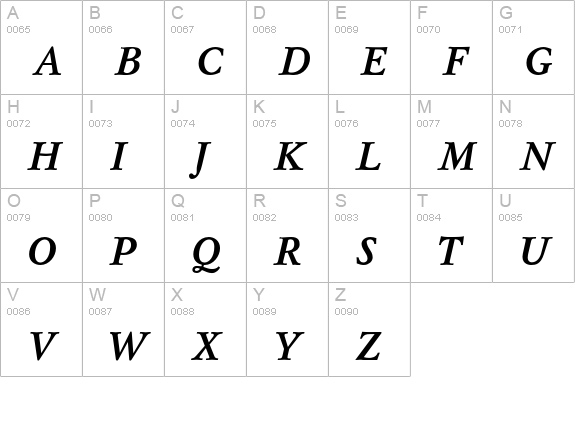
PM Mysl BoldItalic Cyrillic Font Details
The PM Mysl BoldItalic Cyrillic font is a stunning typeface that combines elegance with a bold and italicized style. Its sleek design and distinctive Cyrillic characters make it a perfect choice for projects that require a touch of sophistication and flair. This font is not only visually appealing but also versatile, making it suitable for a wide range of design projects, from branding to editorial work. Whether you are creating a logo, poster, or website, the PM Mysl BoldItalic Cyrillic font will surely make a statement. Best of all, this font is available for free download at FontsMarket.com. So, if you're looking to add a touch of class to your designs without breaking the bank, be sure to check out the PM Mysl BoldItalic Cyrillic font today!